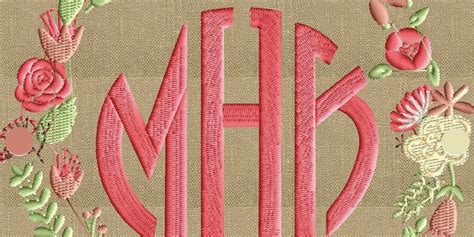
Well, having your initials or name embroidered on a piece of clothing or accessories adds a personal touch and makes it extra special. It can also be a great way to show off your unique style and add a bit of flair to your wardrobe. And with the right font, you can really make a statement!
What is Monogramming?
Monogramming is a way of decorating items with a single letter or two or three initials. It is often used to personalize items such as clothing, linens, and other fabric items. Monogramming can also be used on non-fabric items such as stationery, mugs, and tumblers. Monogramming is done by either hand-stitching or machine-embroidering the initials onto the item.
Types of Monogramming
Monogramming can be done with a variety of techniques. Hand-stitching is the traditional method of monogramming, and is done with a needle and thread. An embroidery machine is also popular for monogramming, and allows for more intricate designs than hand-stitching. Monogramming can also be done with vinyl, either through a machine or by hand. Heat-transfer monogramming is also popular, and is a great option for items that cannot be sewn.
Benefits of Monogramming
Monogramming can add a personalized touch to any item. It can make a simple item look more special and can be a great way to commemorate a special occasion or event. Monogramming can also be used to make items more recognizable, such as a company logo or a personalized message. Monogramming can also be a great way to create a unique gift for someone special.
Advantages of Monogramming
Monogramming is a relatively inexpensive way to personalize items. It is also a relatively easy and quick process, depending on the type of monogramming being done. Monogramming can be done on a variety of materials and can be used to create a wide range of designs. Monogramming is also a great way to add a personal touch to any item, making it more meaningful and special.
How to Get Started with Monogramming
If you are interested in monogramming items, there are a few things you will need to get started. First, you will need to decide on the type of monogramming you want to do. You will also need to purchase the necessary supplies, such as an embroidery machine, thread, needles, and fabric if you are doing hand-stitching. You will also need to purchase or create a design or pattern. Finally, you will need to practice and perfect your technique before you begin monogramming items.
Where to Find Monogramming Supplies and Resources
There are a variety of online stores and websites that offer supplies and resources for monogramming. Websites such as Etsy and Monogramming Boutique offer a variety of supplies, designs, and tutorials for monogramming. Local craft stores and fabric stores also offer supplies for monogramming. Additionally, many online tutorials and videos can be found on YouTube and other websites.
Discover the Magic of Monogramming: Get Free Embroidery Monogram Fonts Now!
If you are looking for a way to add a personalized touch to your items, monogramming is a great option. There are a variety of monogramming techniques and supplies available, and many of them can be found for free online. There are several websites offering free embroidery monogram fonts, such as Monogramming Boutique and Font Bundles. You can use these fonts to create unique designs and patterns for your monogramming projects.
How to Choose the Right Monogram Font
Choosing the right monogram font can be a daunting task. There are so many fonts to choose from and it can be difficult to decide which one is best for your project. When choosing a font, it is important to consider the size of the monogram and the type of fabric you are using. It is also important to consider the overall look and feel of the design. For example, a bold font may work best for a large item, while a delicate font may be better for a smaller item. You may also want to consider the style of the font, such as script or block lettering. Experimenting with different fonts can help you find the perfect one for your project.
Conclusion
Monogramming can be a great way to add a personalized touch to any item. There are a variety of monogramming techniques and supplies available, and many of them can be found for free online. With the right supplies and resources, you can create unique designs and patterns for your monogramming projects. Monogramming is a relatively inexpensive way to personalize items and can make a simple item look more special.